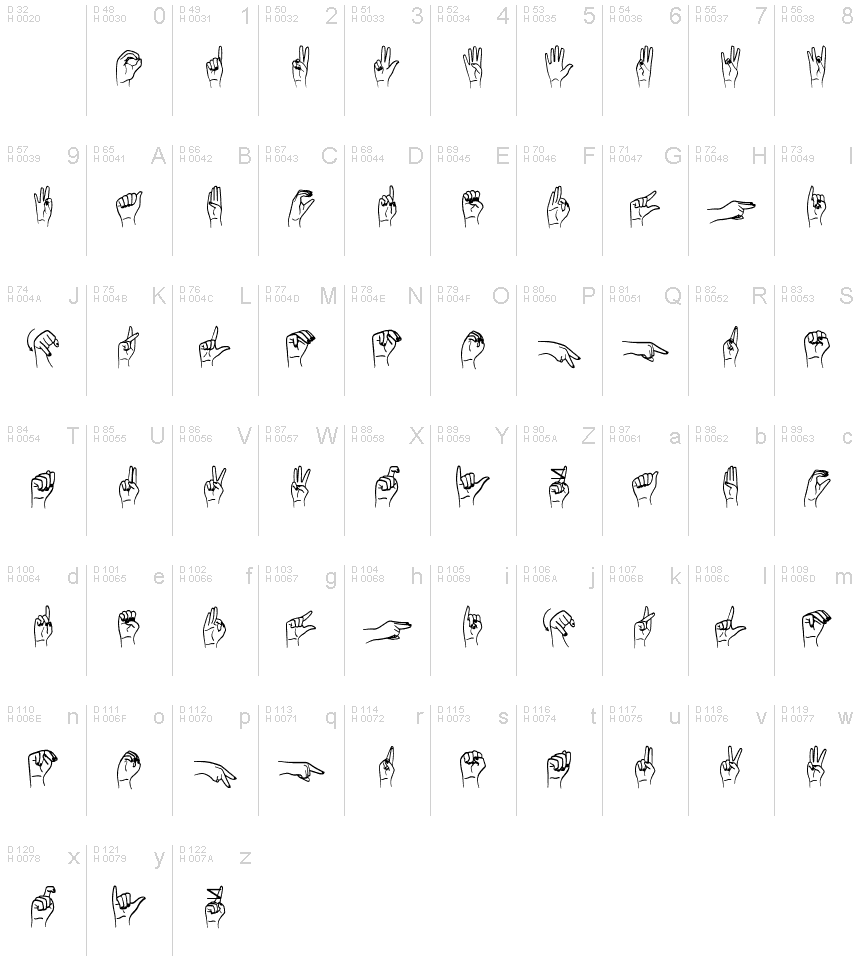
I am very happy to introduce "Happy Hands", a fun way to learn and use the American Sign Language !
"Happy Hands" comes in uppercase & numbers. Letters range from A to Z and numbers from 0 to 10. ?
Happy Hands